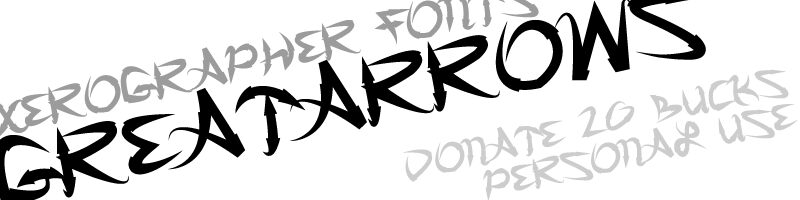
GreatArrows by Max Infeld of Xerographer.com is a free graffiti font with a dense, jagged, slashing silhouette. Arrowhead tips and shifting stroke widths keep the lettering in motion.
It is strongest on music posters, where the tangled forms can read like a custom tag or band mark. Skate merchandise and streetwear graphics also suit its sharp motion, especially when the lettering becomes part of an illustrated spray-paint or urban action theme.
GreatArrows!